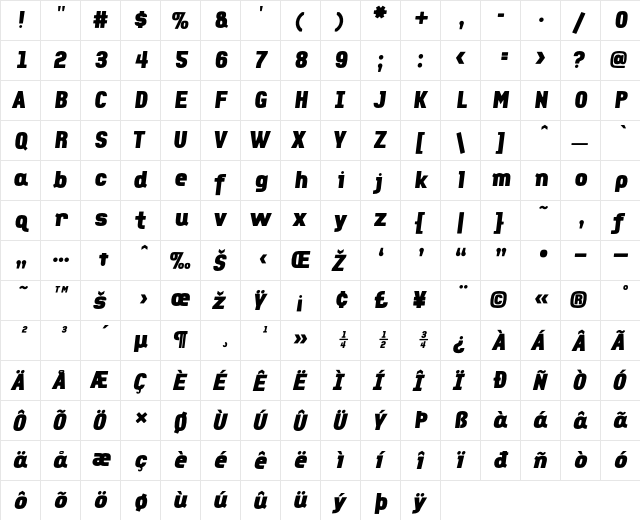
FauxCRA ExtraBoldItalic
Design Context for FauxCRA Typeface
FauxCRA offers clean, dependable letterforms without strong stylistic allegiance, making it a practical choice for designers who need flexibility. The slanted form adds forward momentum and visual energy. The heavy weight commands attention and anchors typographic hierarchies.